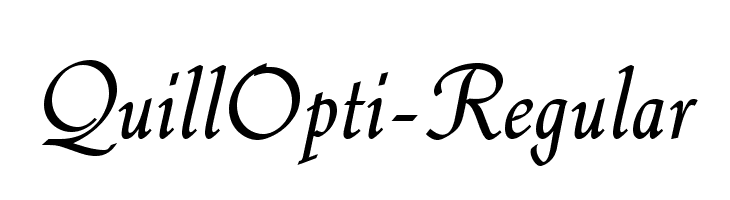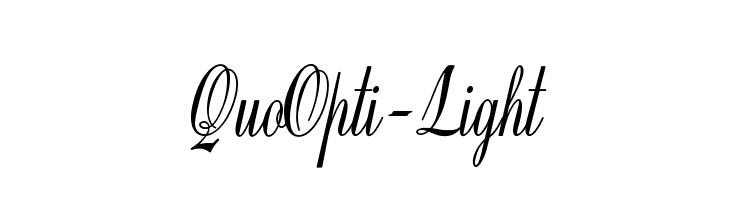
A bold, rounded, and modern geometric font with uniform thickness.
A modern, geometric font with subtle curves and a playful touch.
A classic serif font with elegant strokes and refined proportions.
A bold, classic serif font with strong strokes and pronounced serifs.
A bold, italic serif font with a classic and elegant style.
An elegant italic serif font with smooth curves and a refined, classic style.
An elegant script font with a refined, flowing style and medium contrast.
A bold, elegant script font with flowing, cursive design and ornate uppercase letters.
An elegant script font with flowing, cursive letterforms and intricate flourishes.
A bold, dynamic font with sharp, angular edges and a playful style.